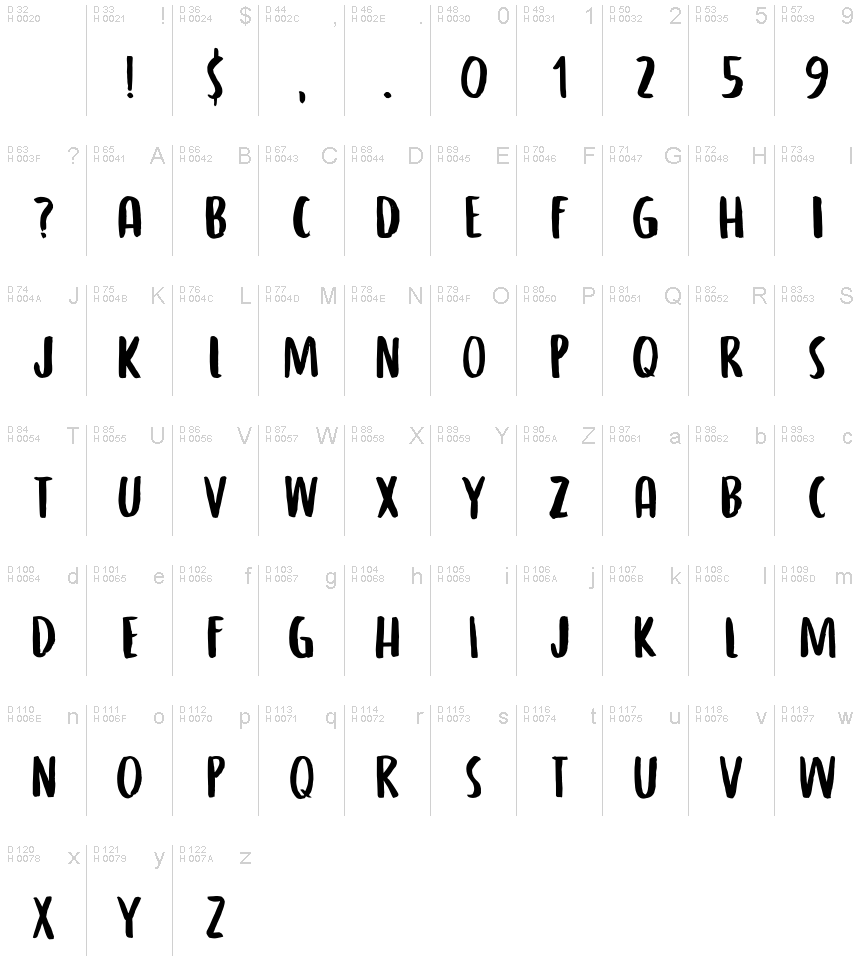
Local Roast DEMO Regular
Local Roast font by Hanoded captures attention with its striking brush style and condensed width, offering a bold yet approachable aesthetic. This handcrafted typeface exudes an organic, artisanal vibe, making it ideal for projects that require a personal touch. Perfect for café branding, creative packaging, or artistic posters, the Local Roast font delivers impact and charm in every letter.
Designed to stand out while maintaining readability, this free font is available for download by creatives looking to enrich their design repertoire. Incorporate Local Roast into your next project for a distinctive look that speaks volumes about craftsmanship and individuality. Whether you're seeking a fresh typeface for digital media or eye-catching print materials, this font provides versatility with style.